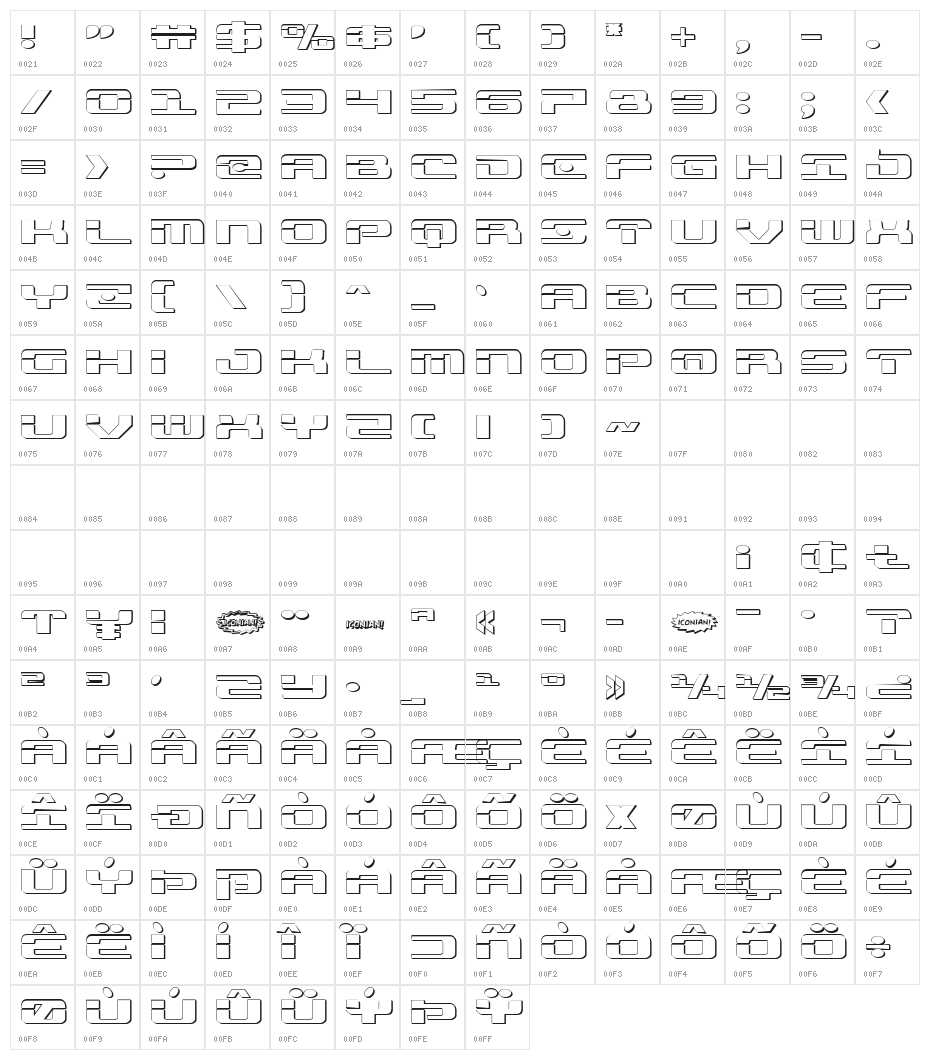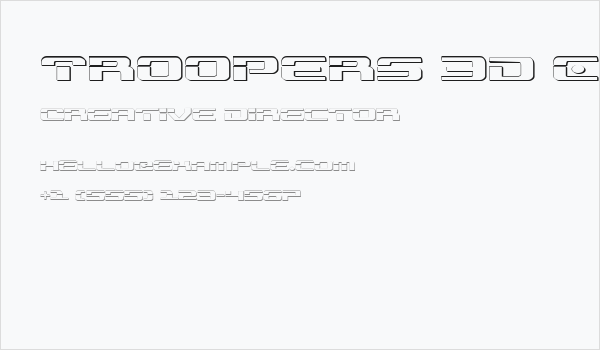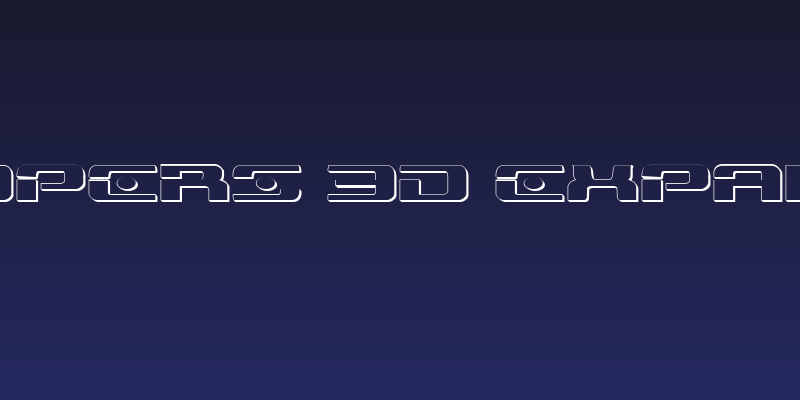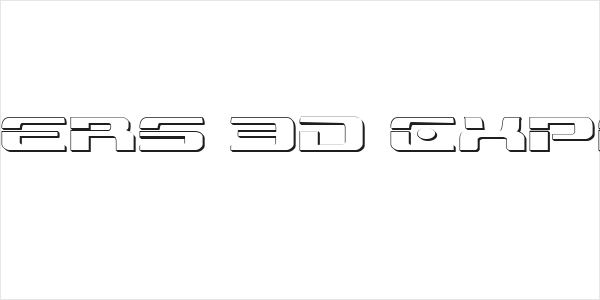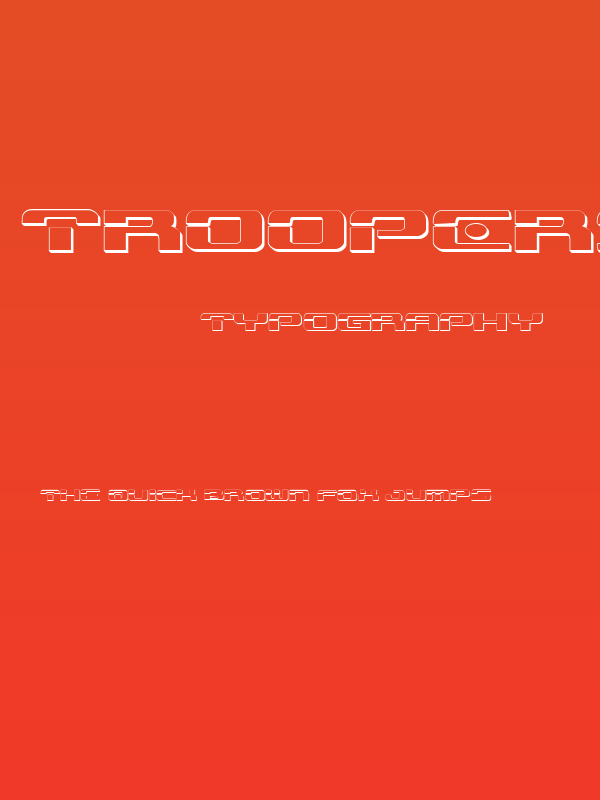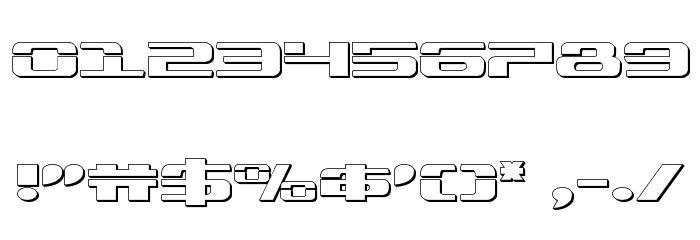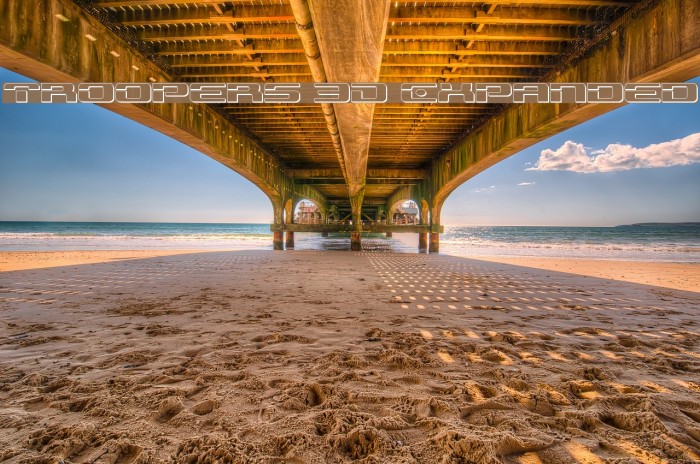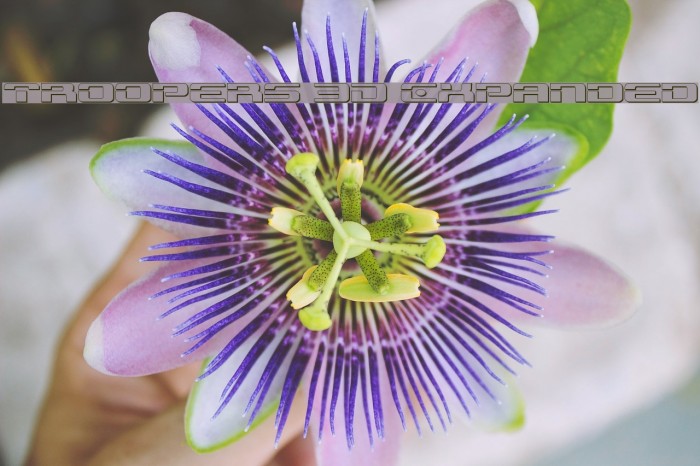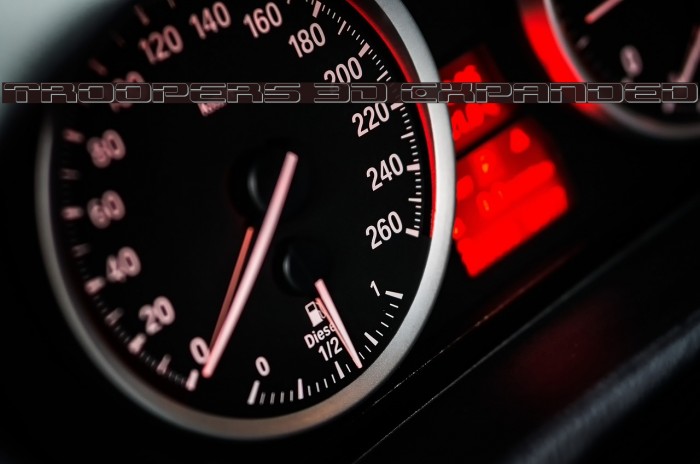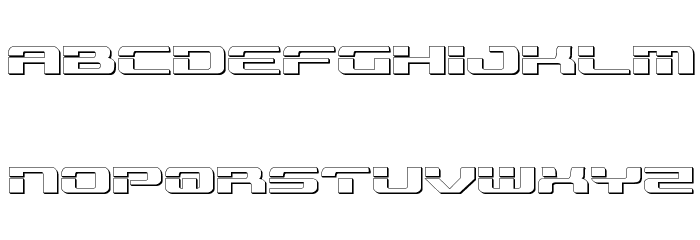
Troopers 3D Expanded Font
Troopers 3D Expanded Description
This font features a bold, three-dimensional design with an expanded width, giving it a futuristic and dynamic appearance. The characters are outlined with a double line, creating a hollow effect that enhances its 3D look. The geometric shapes and straight lines contribute to a modern and tech-inspired aesthetic. Each letter and number is distinct, with sharp angles and a consistent structure that maintains readability despite its decorative style. The special characters follow the same design principles, ensuring uniformity across the font set.
| Proposed Projects | Ideal for sci-fi movie posters, tech company logos, video game titles, and futuristic-themed event invitations. |